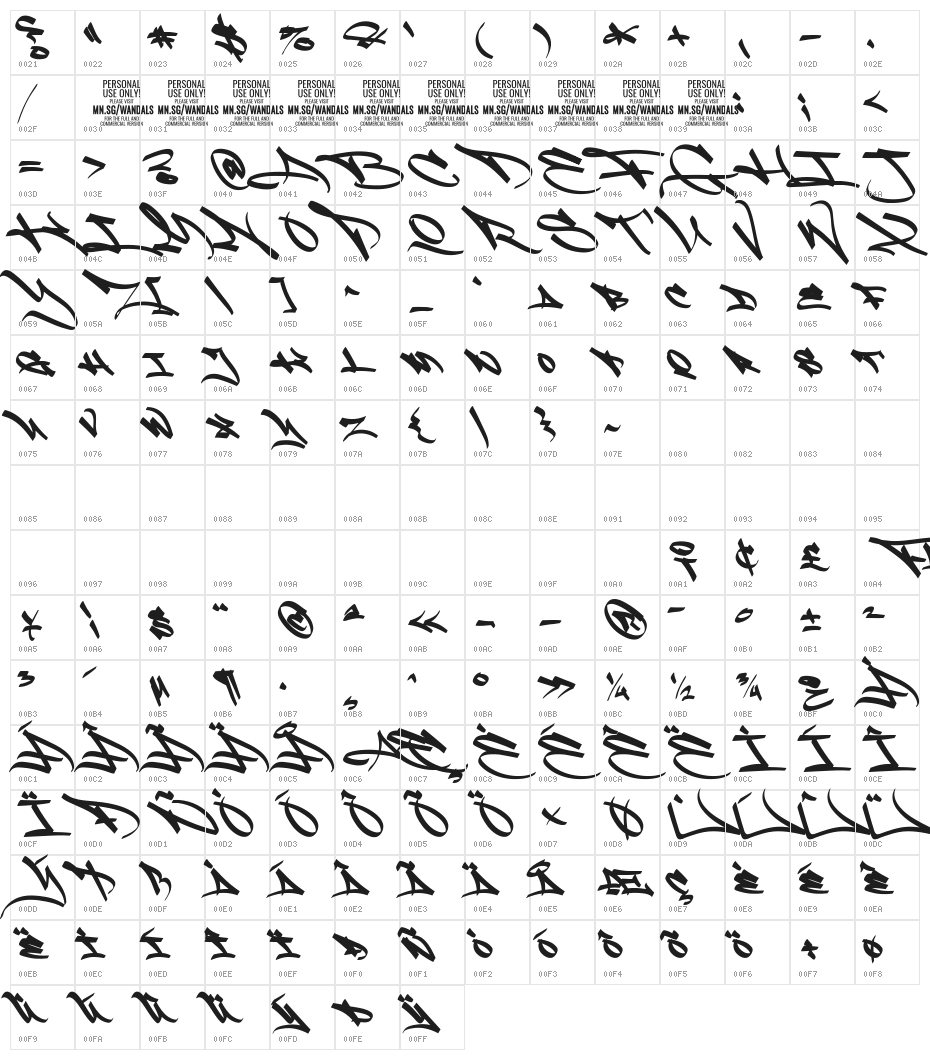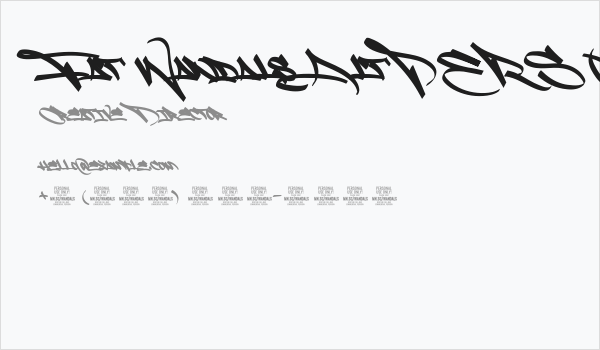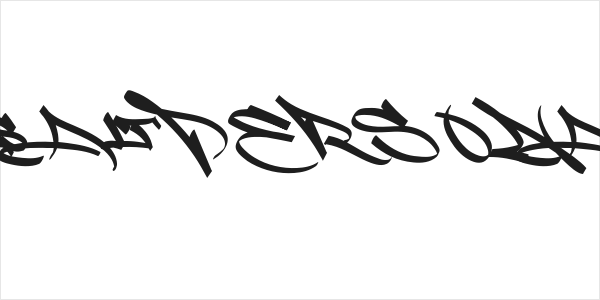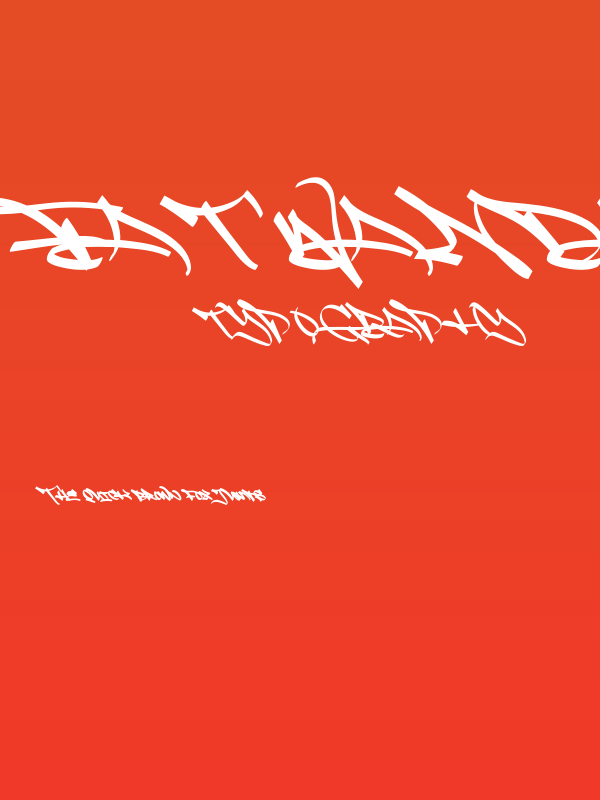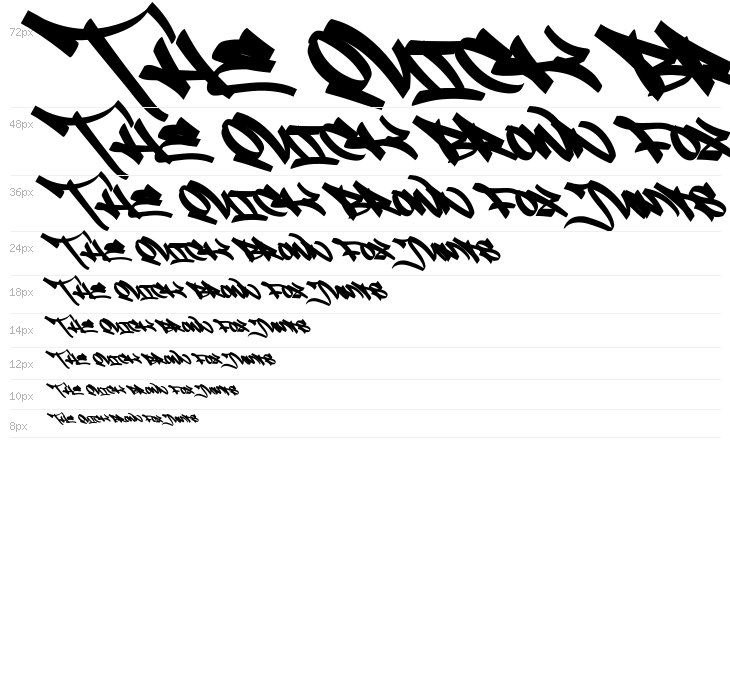
Fat Wandals Alt PERSONAL USE Font
Fat Wandals Alt PERSONAL USE Description
This font exhibits a bold, graffiti-inspired style with dynamic, flowing lines and a sense of urban energy. The characters are highly stylized with exaggerated curves and sharp angles, creating a sense of movement and spontaneity. The uppercase and lowercase letters maintain a consistent aesthetic, while the numbers and special characters integrate seamlessly into the overall design. The font's thick strokes and interconnected forms give it a strong visual impact, making it ideal for projects that require a bold and artistic statement.
| Use Case | Logos, Posters, Headlines |
| Proposed Projects | Ideal for street art projects, urban-themed posters, music album covers, and edgy branding materials. |